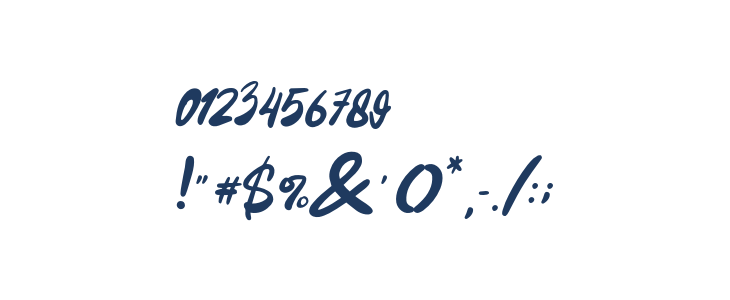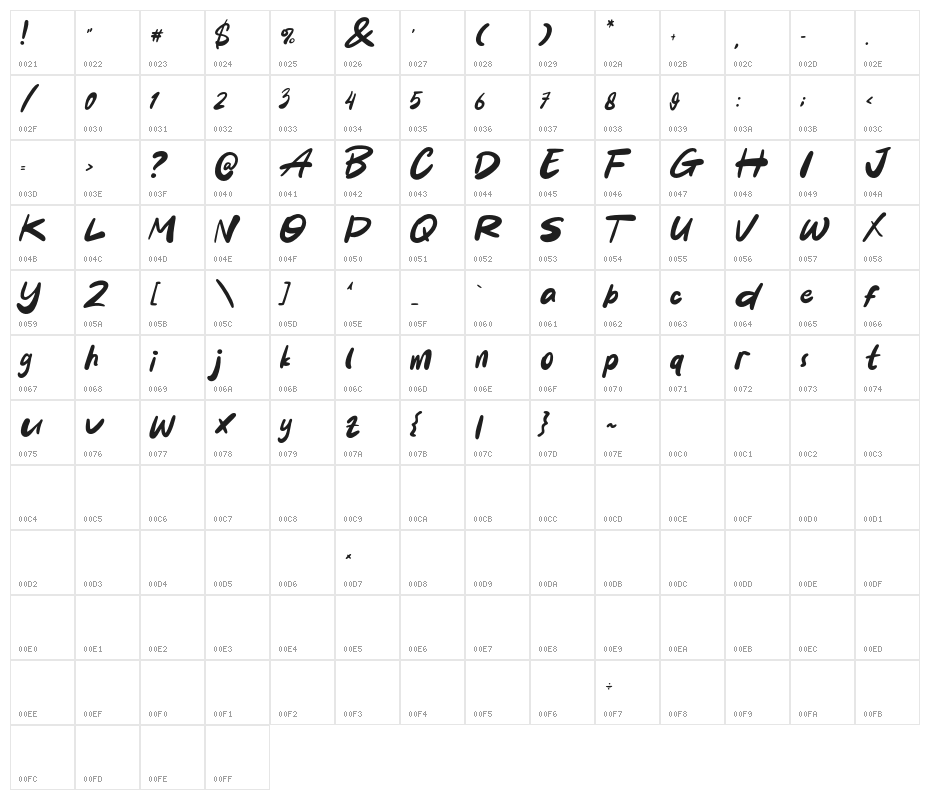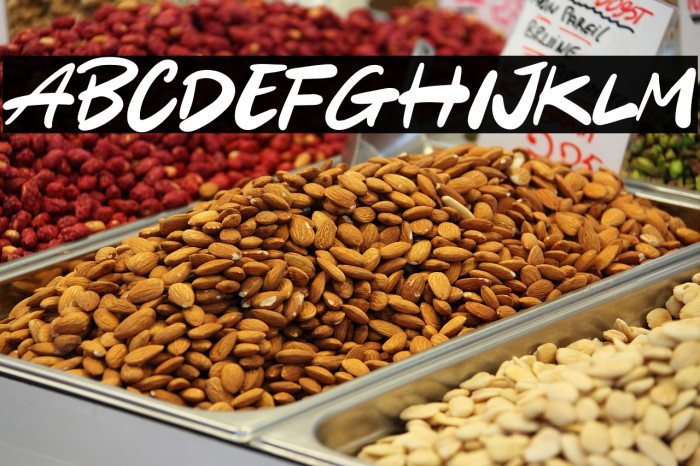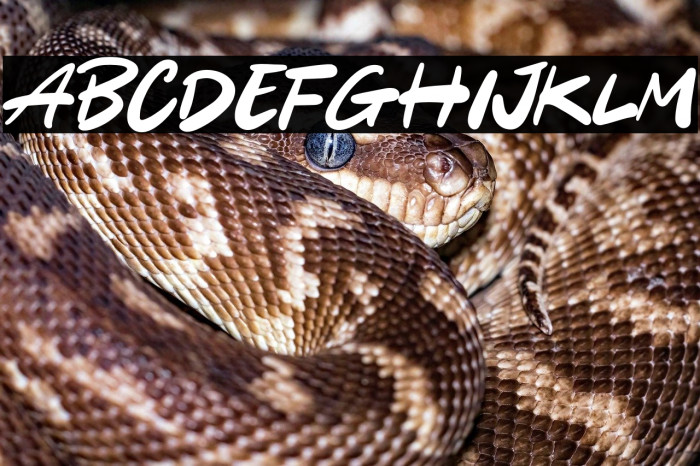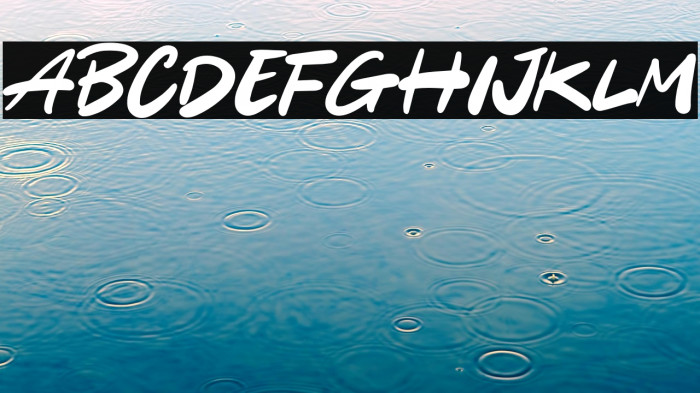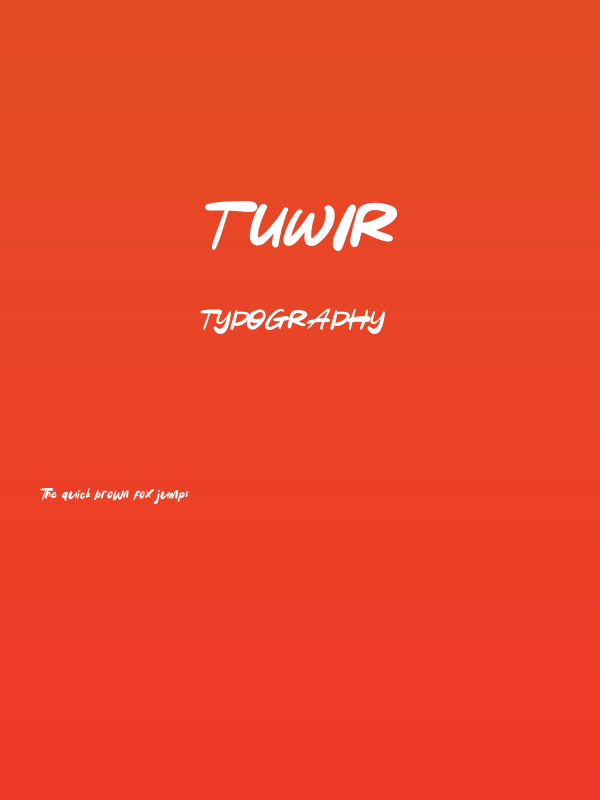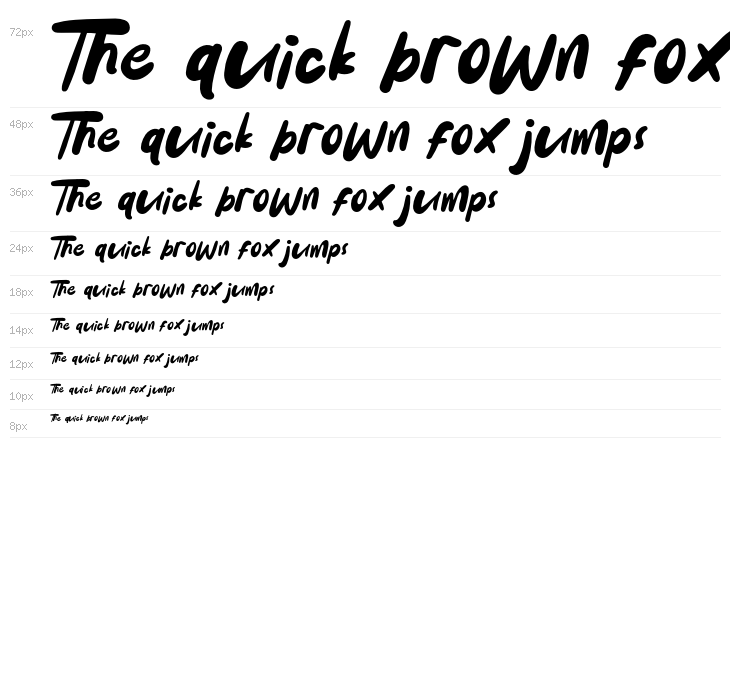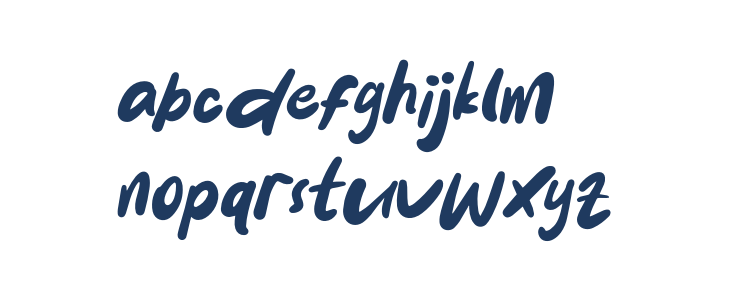
Tuwir Font
Tuwir Description
This font features a bold, dynamic script style with a handwritten appearance. The letters are fluid and connected, giving a sense of motion and energy. The uppercase letters are slightly larger and more pronounced, while the lowercase letters maintain a consistent flow. The numbers and special characters are designed to match the overall style, with a playful yet sophisticated look. This font is ideal for projects that require a personal touch or a creative flair. The strokes are thick and consistent, providing a strong visual impact.
| Use Case | Logos, Headlines, Creative projects |
| Proposed Projects | Ideal for branding, invitations, greeting cards, and creative projects that require a personal touch. |